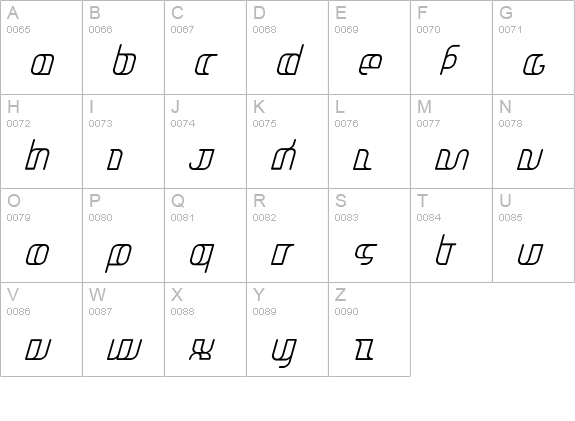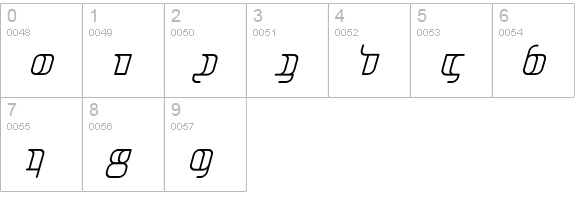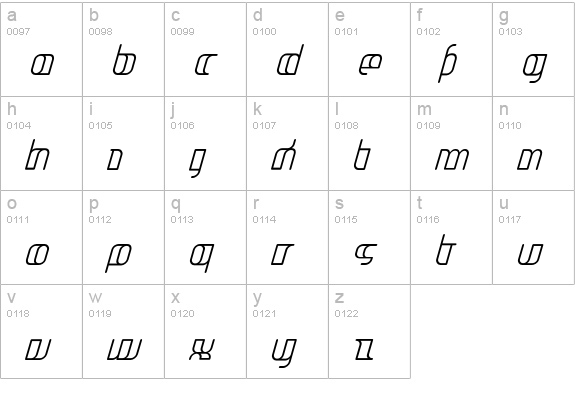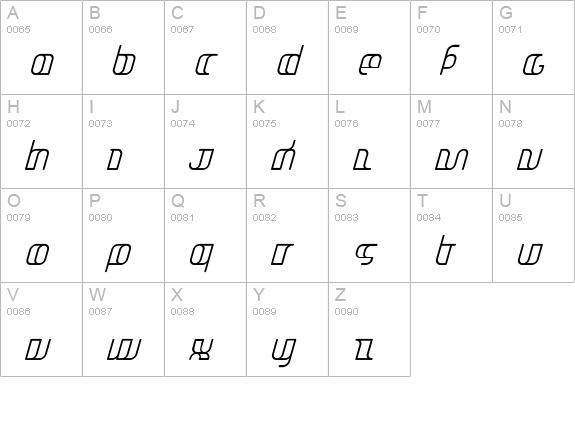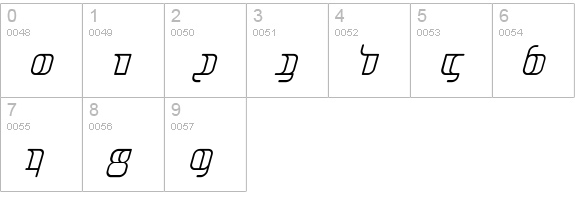
Introducing Jakone-CondensedItalic font, a captivating and stylish typeface that effortlessly combines elegance with modernity. Its condensed form adds a touch of sophistication, making it the perfect choice for projects that require a sleek and contemporary aesthetic. The Jakone-CondensedItalic font boasts a unique italicized design that exudes a sense of movement and fluidity. Its slanted letterforms add a dynamic flair to any layout, capturing attention and creating a visually engaging experience. The versatility of Jakone-CondensedItalic font is truly remarkable. Whether you're designing a logo, creating eye-catching headlines, or crafting a professional presentation, this font will elevate your work to new heights. Its legibility remains intact even at smaller sizes, ensuring readability across various mediums. One of the most appealing aspects of Jakone-CondensedItalic font is its availability. It is freely accessible to download at FontsMarket.com, allowing designers, artists, and enthusiasts alike to enjoy this exceptional typeface without any constraints. This font offers a wonderful opportunity to enhance your creative endeavors with a high-quality, professionally crafted typeface, completely free of charge. Experience the allure of Jakone-CondensedItalic font and unlock the potential to create visually stunning and captivating designs. With its unique italicized form, sleek condensed structure, and freely accessible availability, this font is a must-have for anyone seeking to make a bold statement with their typography. Download Jakone-CondensedItalic font today from FontsMarket.com and embark on a journey of creativity and innovation.